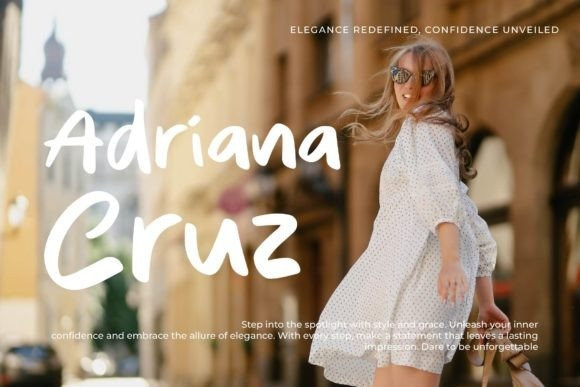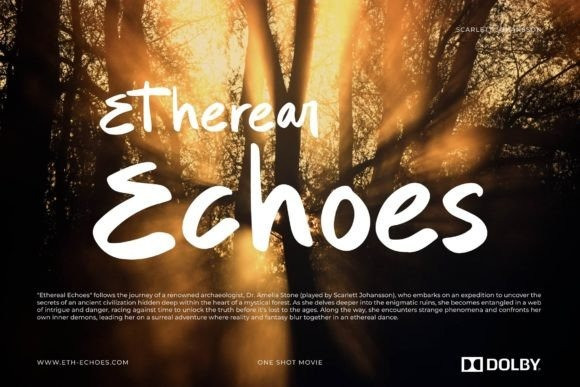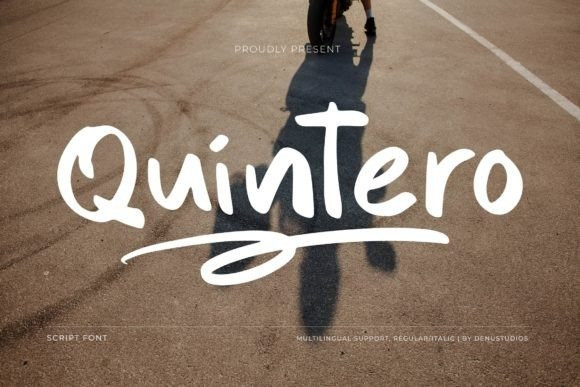
Quintero Font
Quintero Font is a handwritten script font with a natural and stylish look. It’s perfect for creating personal projects like greeting cards, logos, invitations, or anything that needs a personal, handwritten touch. The letters flow smoothly, giving your design a friendly and elegant feel. Ideal for adding creativity and personality to your text.